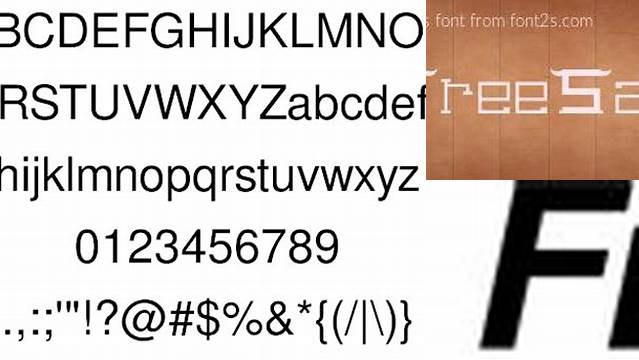
FreeSans Font TTF: Your Ultimate Guide
Hey guys! Ever stumbled upon a font that just works for everything? That might just be FreeSans! This comprehensive guide dives deep into the world of FreeSans font TTF, exploring its origins, uses, and why it's a staple in many design toolkits. We'll cover everything from downloading and installing it to using it effectively in various projects. So, let's get started and unlock the full potential of FreeSans!
1. What is FreeSans Font TTF?
Let's kick things off by understanding exactly what FreeSans font TTF is. FreeSans is a sans-serif typeface designed as part of the GNU FreeFont project. It’s a versatile font known for its clean lines and readability, making it a go-to choice for a variety of applications. The TTF part simply refers to the TrueType Font format, which is a standard format for fonts on computers. This means it’s widely compatible with different operating systems and software. The beauty of FreeSans lies in its open-source nature, making it freely available for both personal and commercial use. This accessibility has contributed significantly to its widespread adoption. We'll delve deeper into the nuances of FreeSans, understanding its historical context and the reasons behind its creation, which will provide a clearer picture of its significance in the world of typography. You'll find that its simplicity is its strength, allowing it to blend seamlessly into diverse design scenarios while maintaining a professional and polished look. Whether you are working on a website, a document, or a presentation, FreeSans offers a reliable option for clear and effective communication.
2. The History and Origins of FreeSans
To truly appreciate FreeSans, we need to take a quick trip down memory lane. It all started with the GNU FreeFont project, an initiative aimed at creating a set of completely free and open-source fonts. This was a crucial step in ensuring that everyone had access to quality typography without the constraints of licensing fees. FreeSans emerged as one of the key offerings from this project, designed to be a versatile and widely usable sans-serif font. The font was crafted with meticulous attention to detail, ensuring its readability and aesthetic appeal across different sizes and mediums. This historical context sheds light on why FreeSans is so deeply ingrained in the open-source community. It’s not just a font; it's a symbol of accessible design. Understanding this history helps us appreciate the dedication and effort that went into creating a font that’s both functional and free. This makes FreeSans a valuable asset for designers and users who value open-source principles and high-quality typography. Its legacy continues to inspire and influence the world of font design, highlighting the importance of community-driven projects in the creative industry.
3. Key Features and Characteristics of FreeSans
So, what makes FreeSans tick? Its key features are what set it apart. Think clean lines, a modern sans-serif design, and excellent readability. These characteristics make it ideal for both body text and headings. FreeSans boasts a neutral appearance, meaning it doesn't scream for attention but rather supports your content effectively. This neutrality is a major advantage, allowing it to adapt seamlessly to various design styles and contexts. The font also includes a comprehensive character set, supporting a wide range of languages and symbols. This is crucial for global projects and ensures your message can reach a diverse audience. Moreover, FreeSans maintains its clarity even at smaller sizes, making it perfect for digital displays and print materials alike. Its versatility is further enhanced by the availability of different weights and styles, offering flexibility in your design choices. Whether you need a bold statement or a subtle touch, FreeSans has you covered. By understanding these key features, you can leverage FreeSans to its full potential and create visually appealing and highly readable designs.